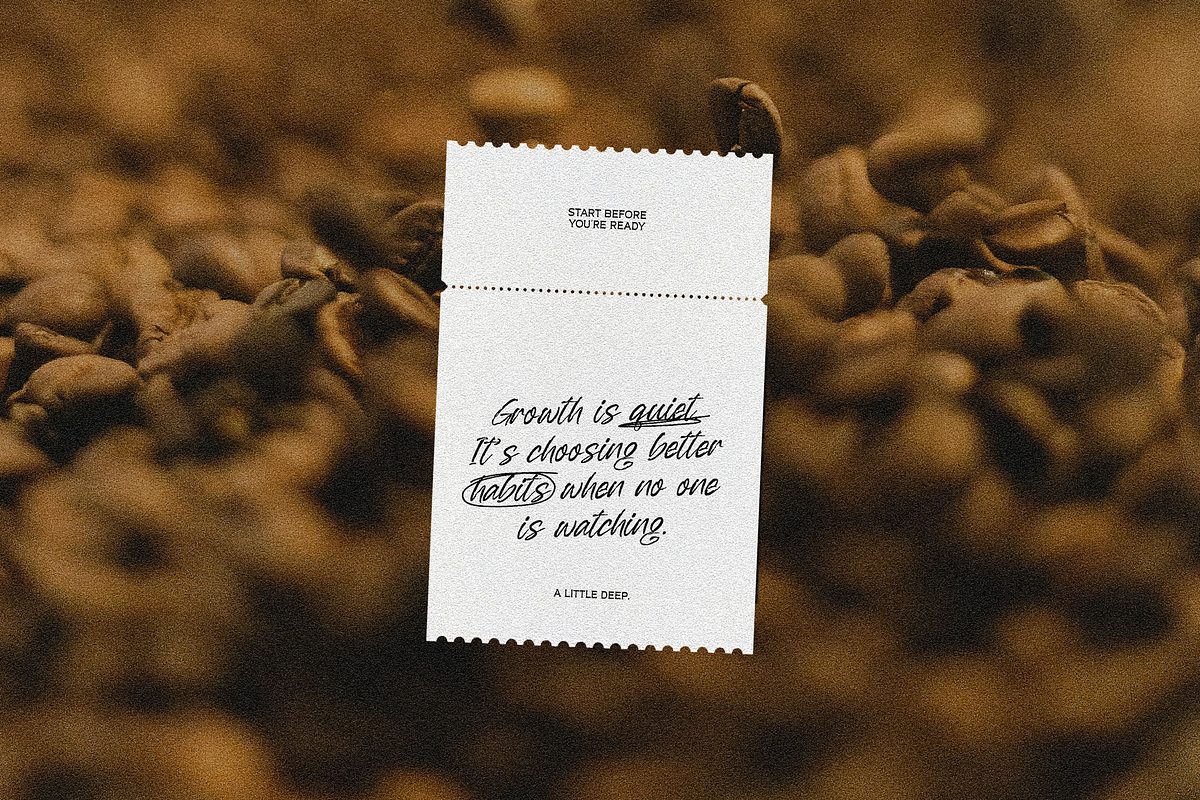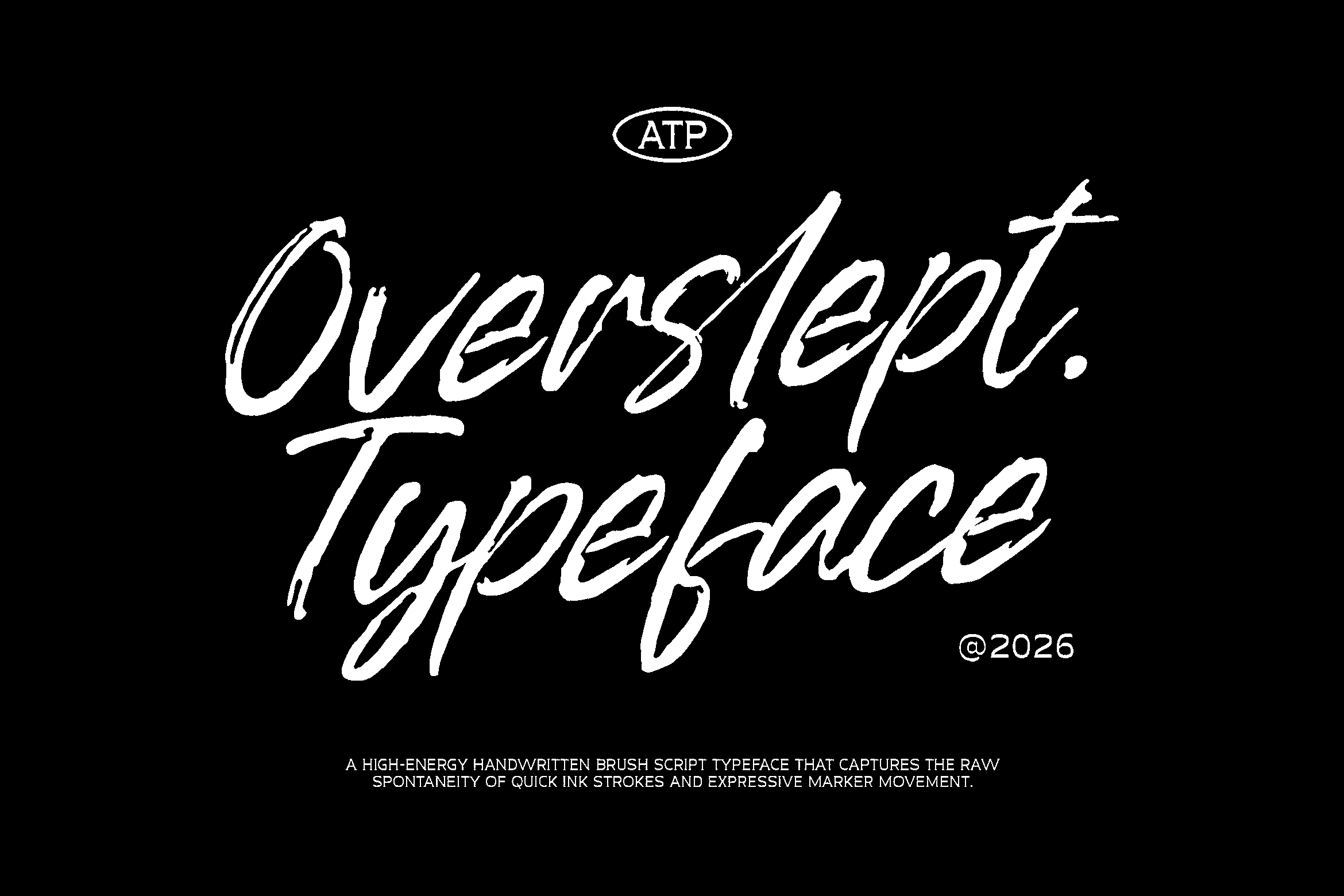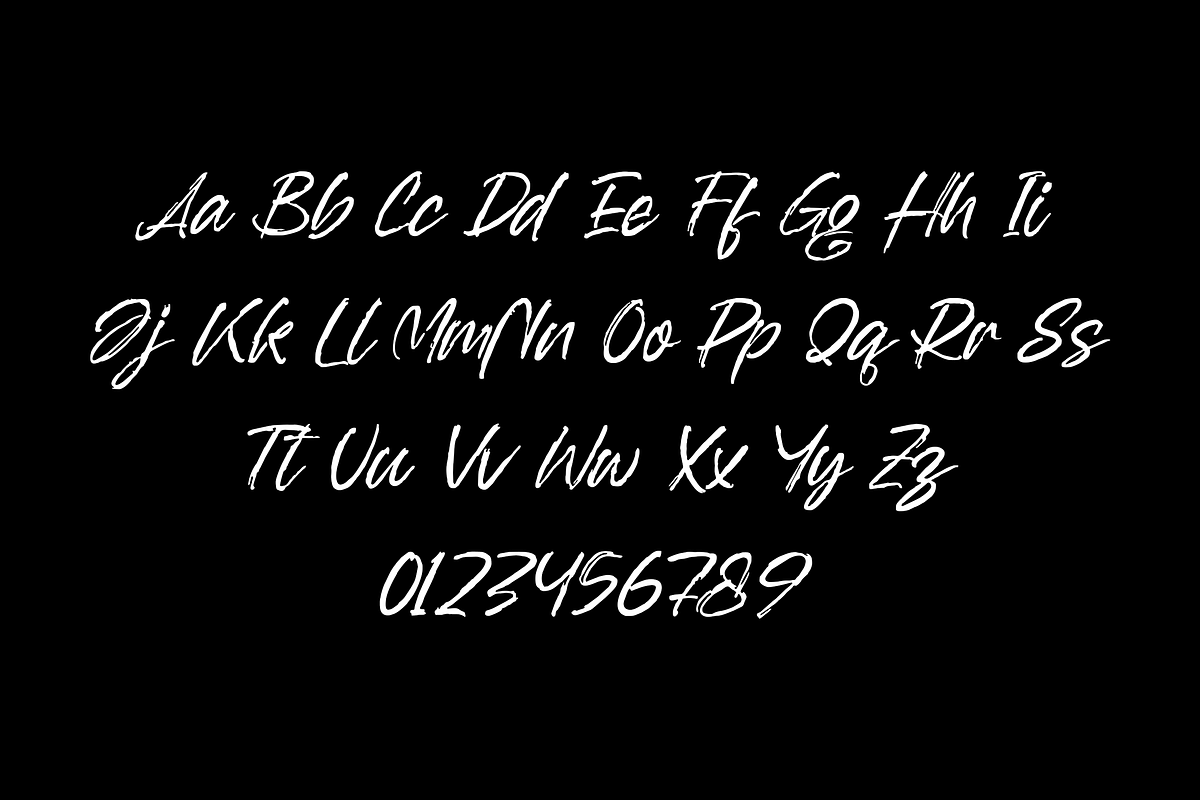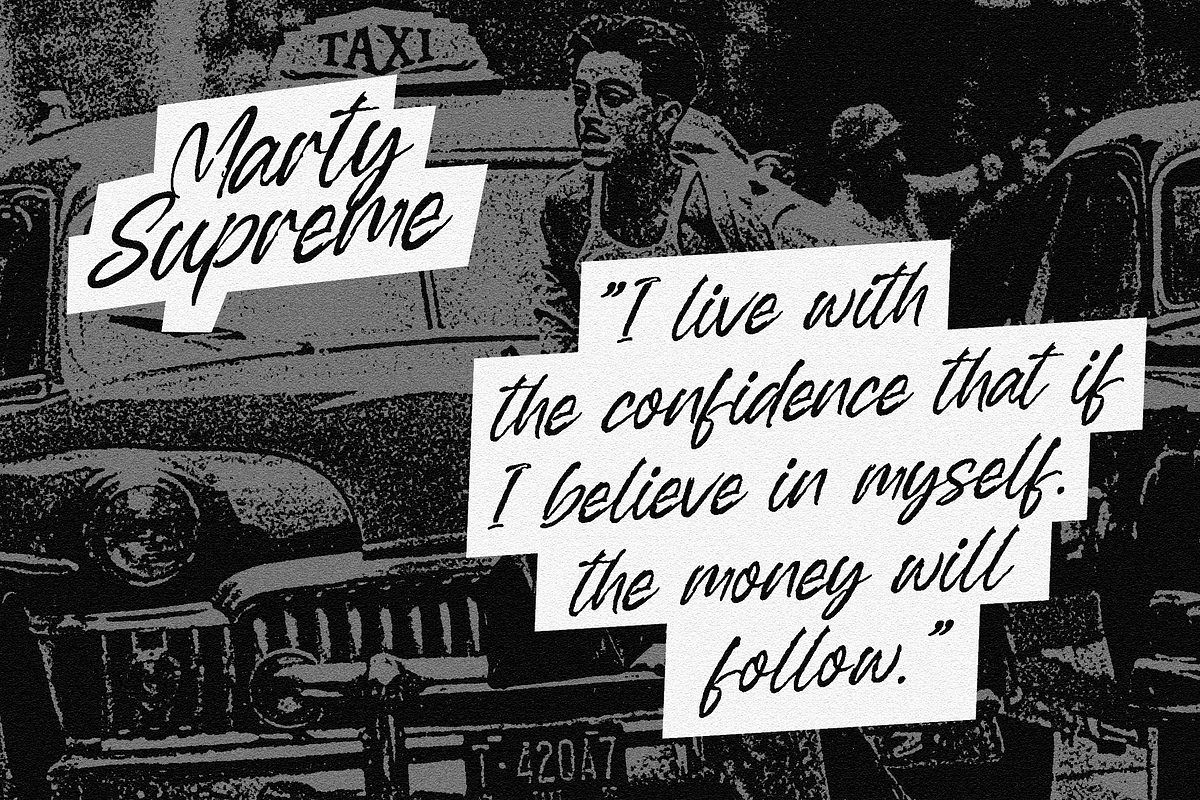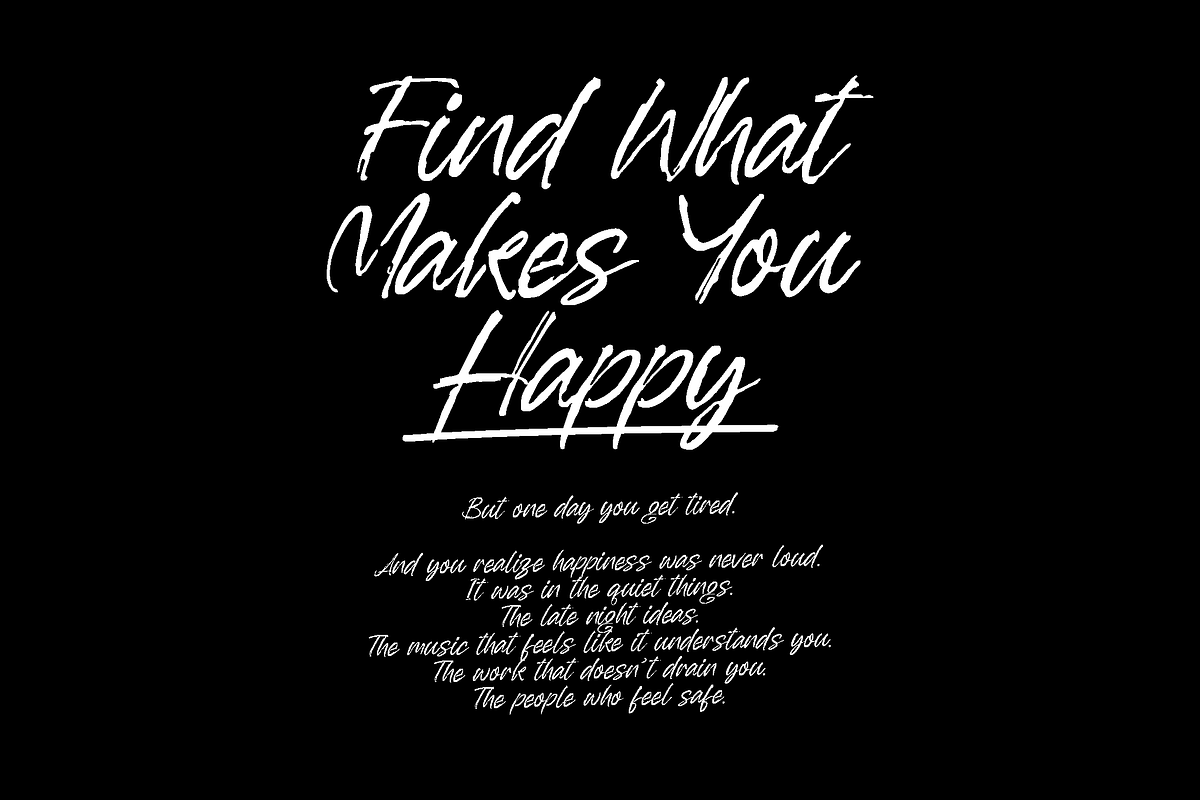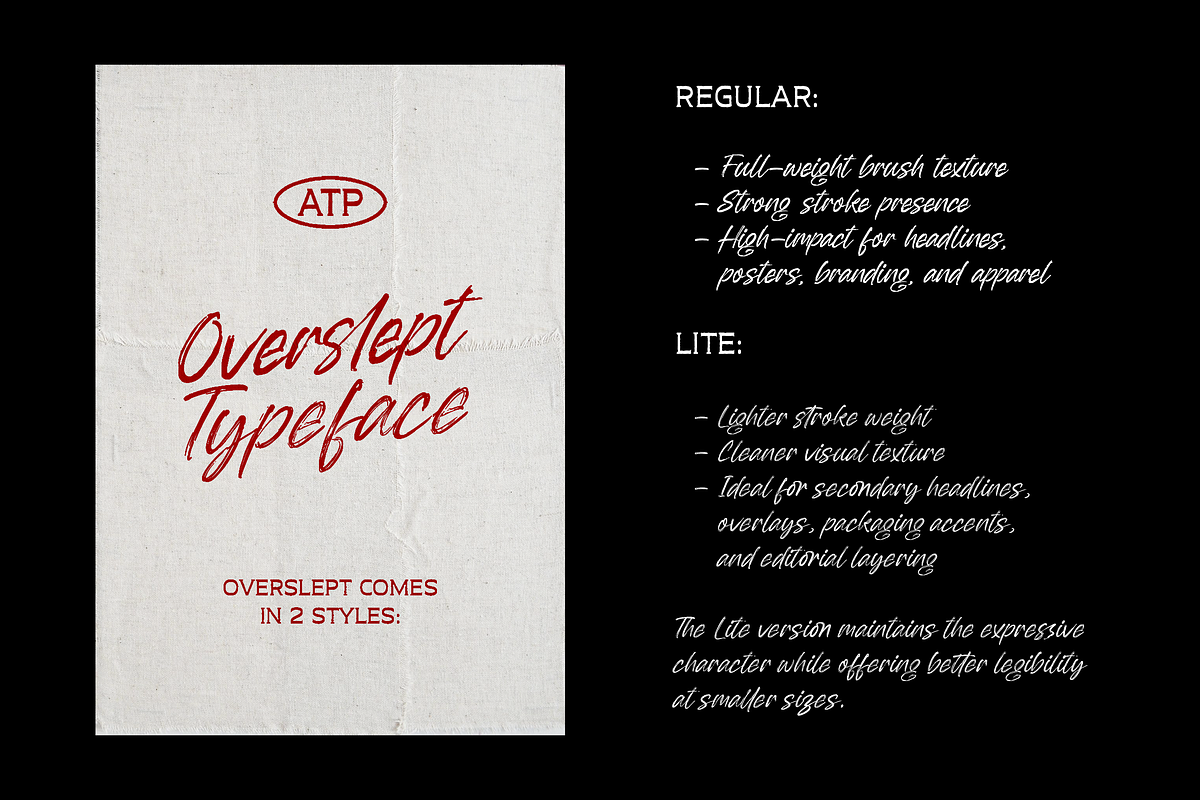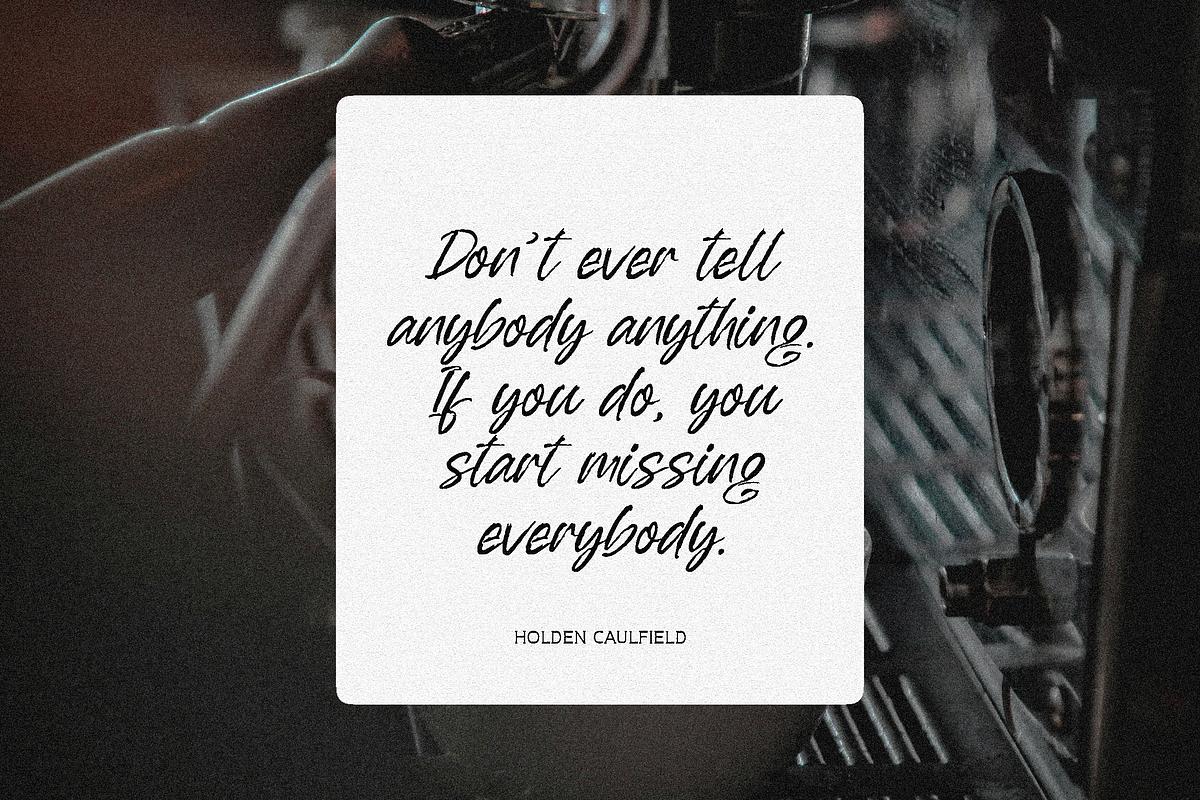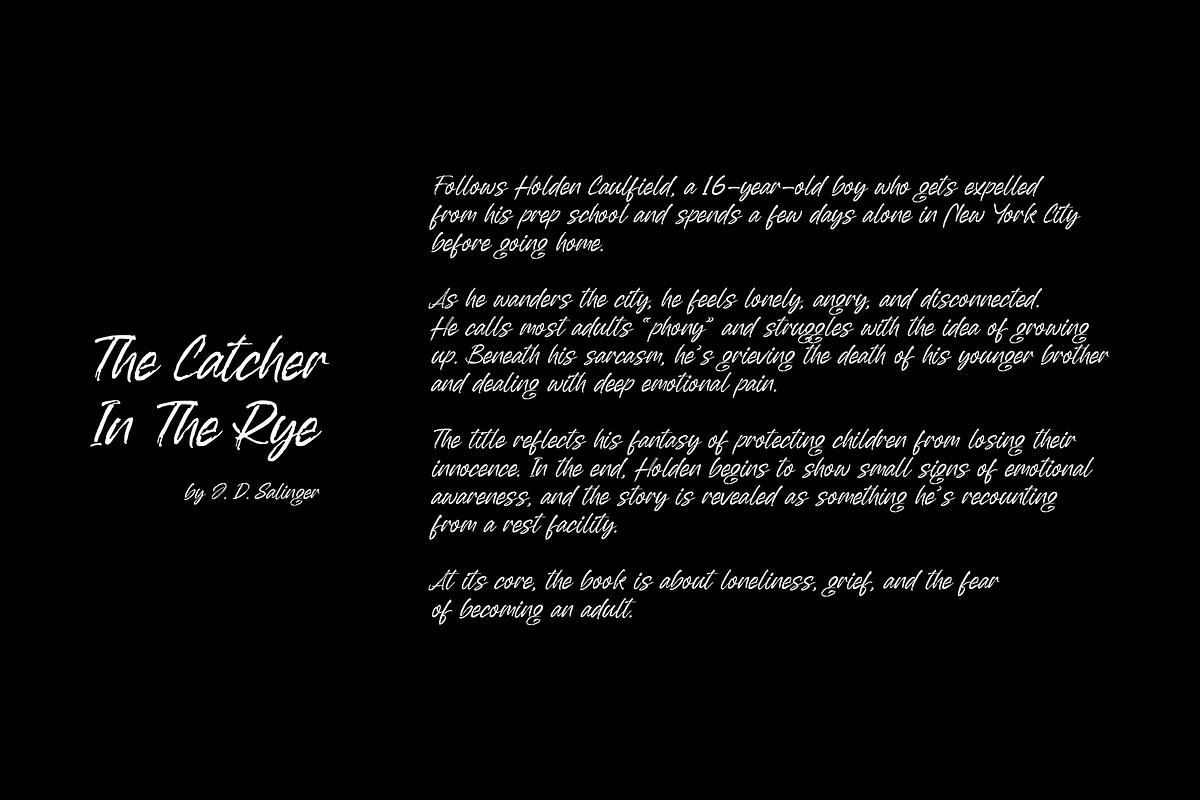
OverSlept - Brush Script Typeface
OverSlept is a bold brush script typeface built with dynamic pressure contrast and natural hand-drawn flow. Designed for expressive branding, music visuals, streetwear graphics, and standout typography, it delivers raw energy with controlled calligraphic structure.
Features Uppercase - Lowercase - Numerics - Punctuation - Multilingual